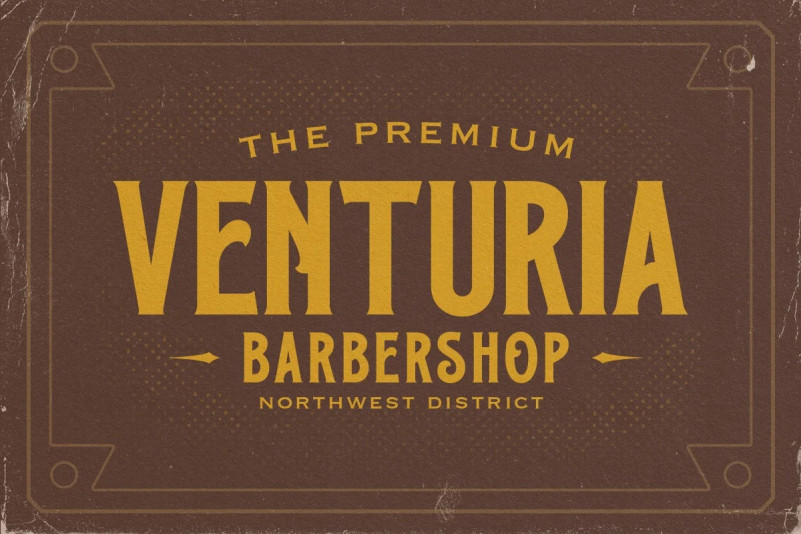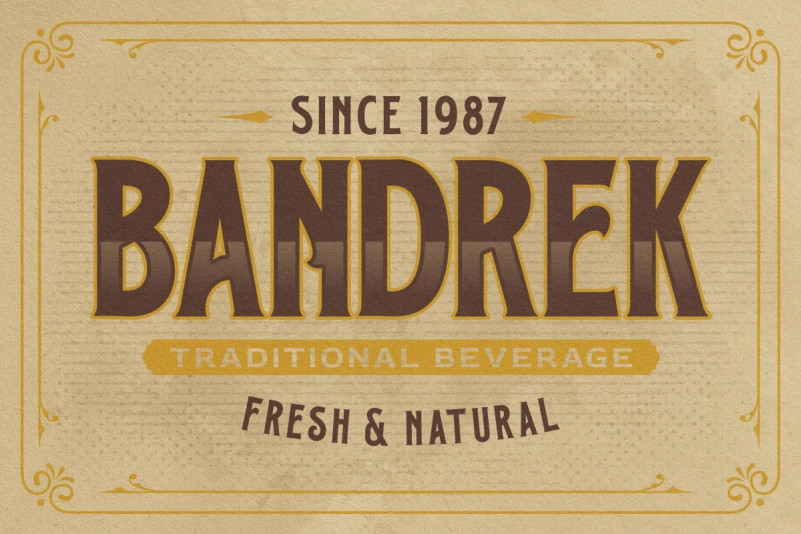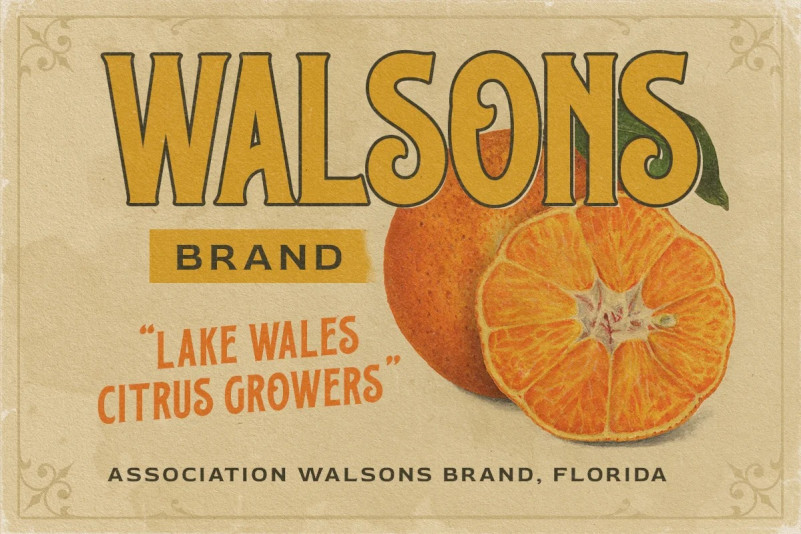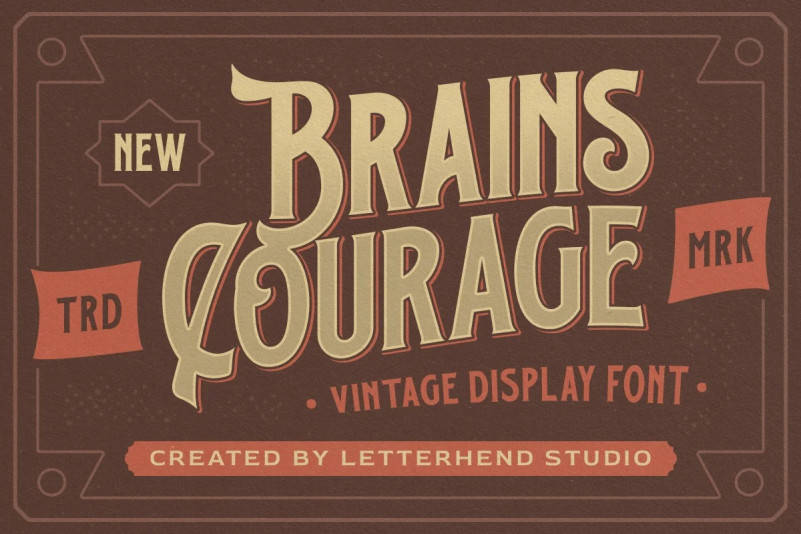
Brains Courage Font
Brains Courage Display Font is a bold, condensed vintage typeface with soft rounded elements. Inspired by 60s and 70s signages. This font perfectly made to be applied especially in logo, and the other various formal forms such as invitations, labels, logos, magazines, books, greeting / wedding cards, packaging, fashion, make up, stationery, novels, labels or any type of advertising purpose.